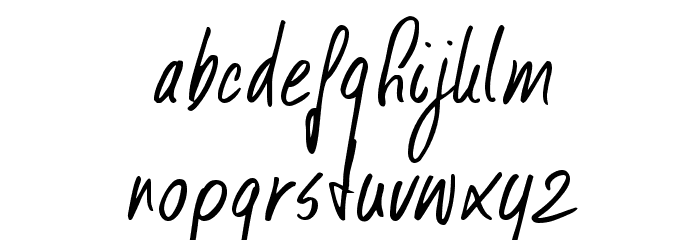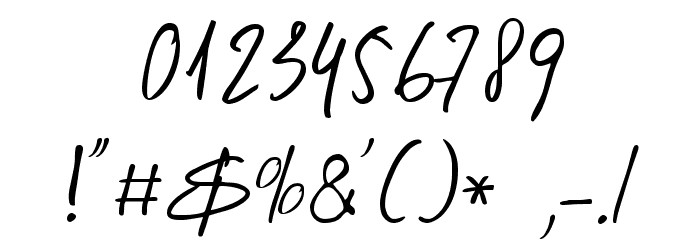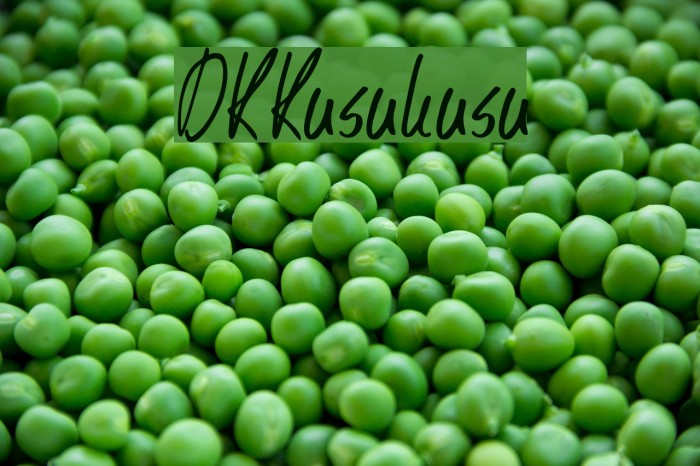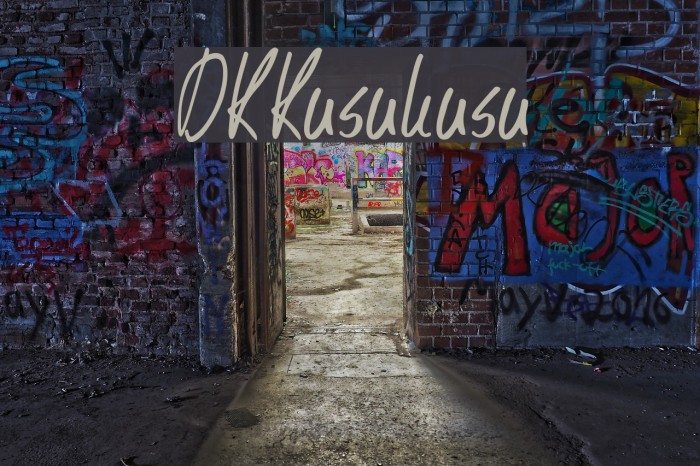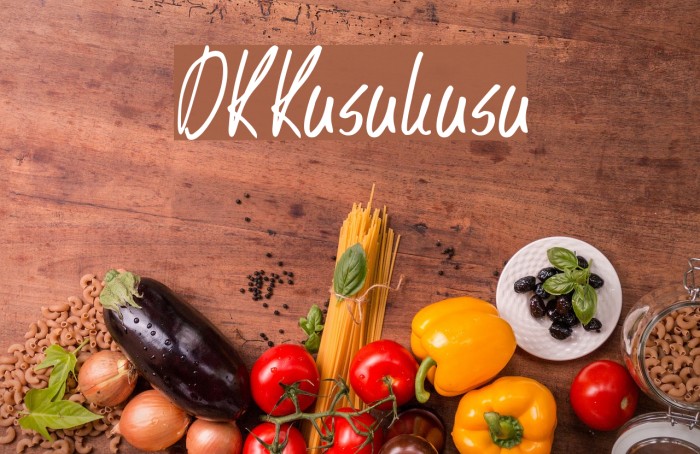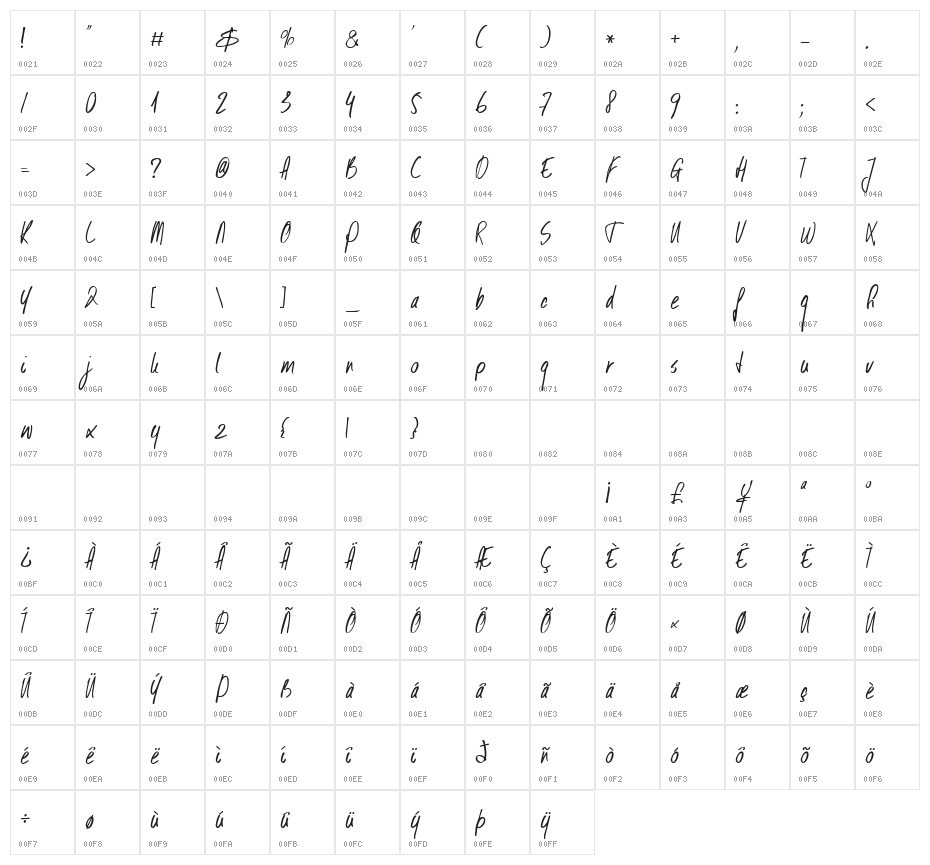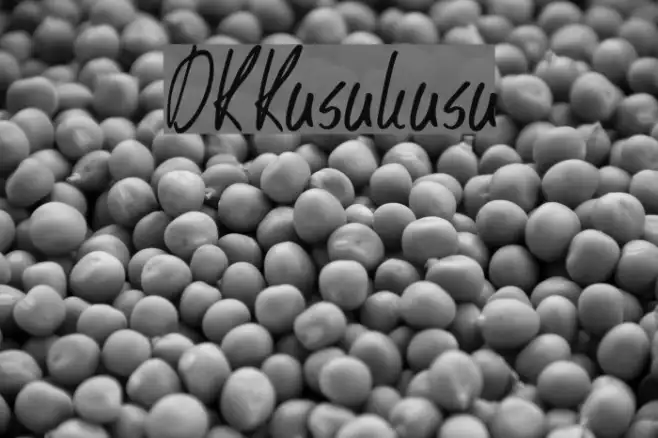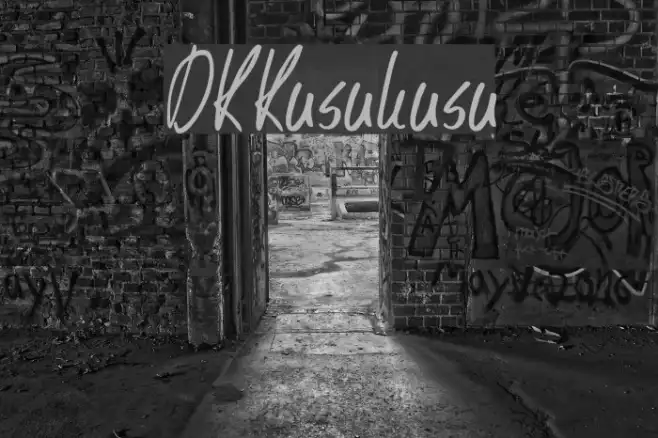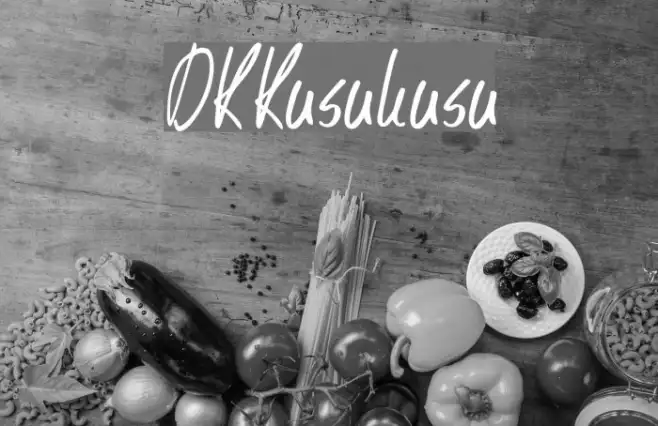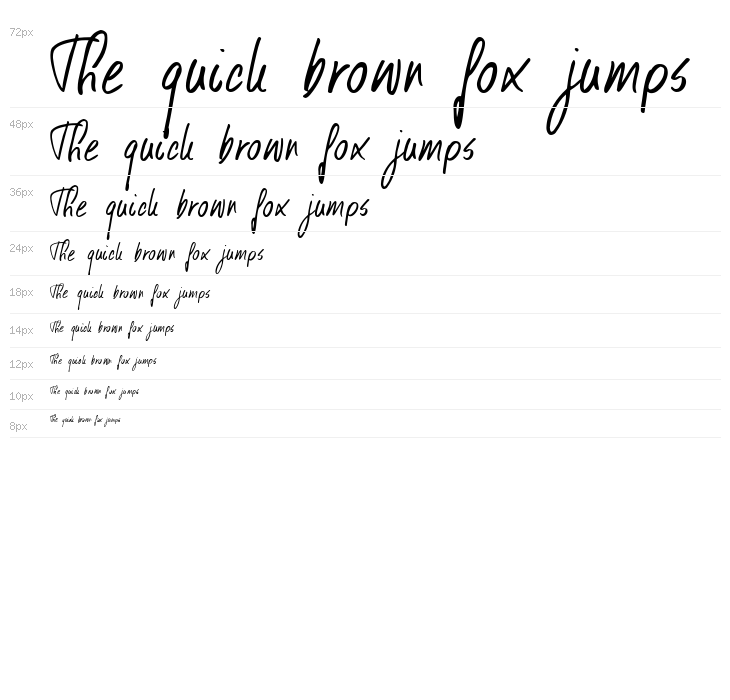
DKKusukusu Font
This font features a dynamic and expressive handwritten style, characterized by its fluid and natural strokes. The letters are slightly slanted, giving a sense of movement and energy. The uppercase letters are bold and prominent, while the lowercase letters maintain a consistent flow, adding to the overall casual and approachable feel. The numerals and special characters are crafted with the same attention to detail, ensuring uniformity across all glyphs. This font's organic appearance makes it ideal for projects that require a personal touch or a creative flair.
A dynamic, expressive handwritten font with fluid strokes.
- Proposed Projects: Ideal for greeting cards, invitations, personal branding, and creative projects.
- Overall Style: Casual, Creative
- Use Case: Headlines, Logos, Invitations